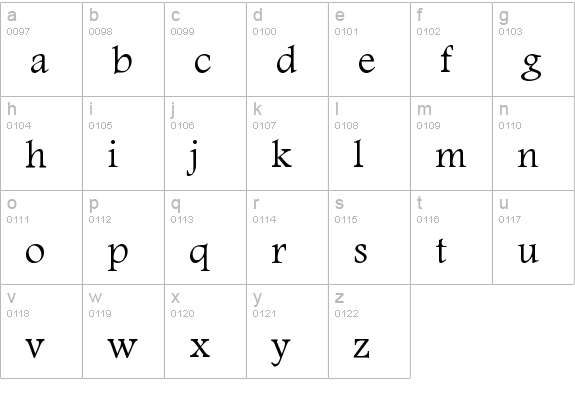
Andalus Font Details
Andalus font is a stunning and elegant typeface that exudes a sense of sophistication and charm. Its unique design features delicate serifs and smooth curves, making it a perfect choice for a wide range of design projects. Whether you're working on invitations, logos, or branding materials, Andalus font will add a touch of class and luxury to your work. The best part? Andalus font is completely free to download at FontsMarket.com. This means you can easily access this beautiful typeface and use it in your projects without any cost. Don't miss out on the opportunity to enhance your designs with the timeless beauty of Andalus font. Download it today and elevate your creative work to new heights.